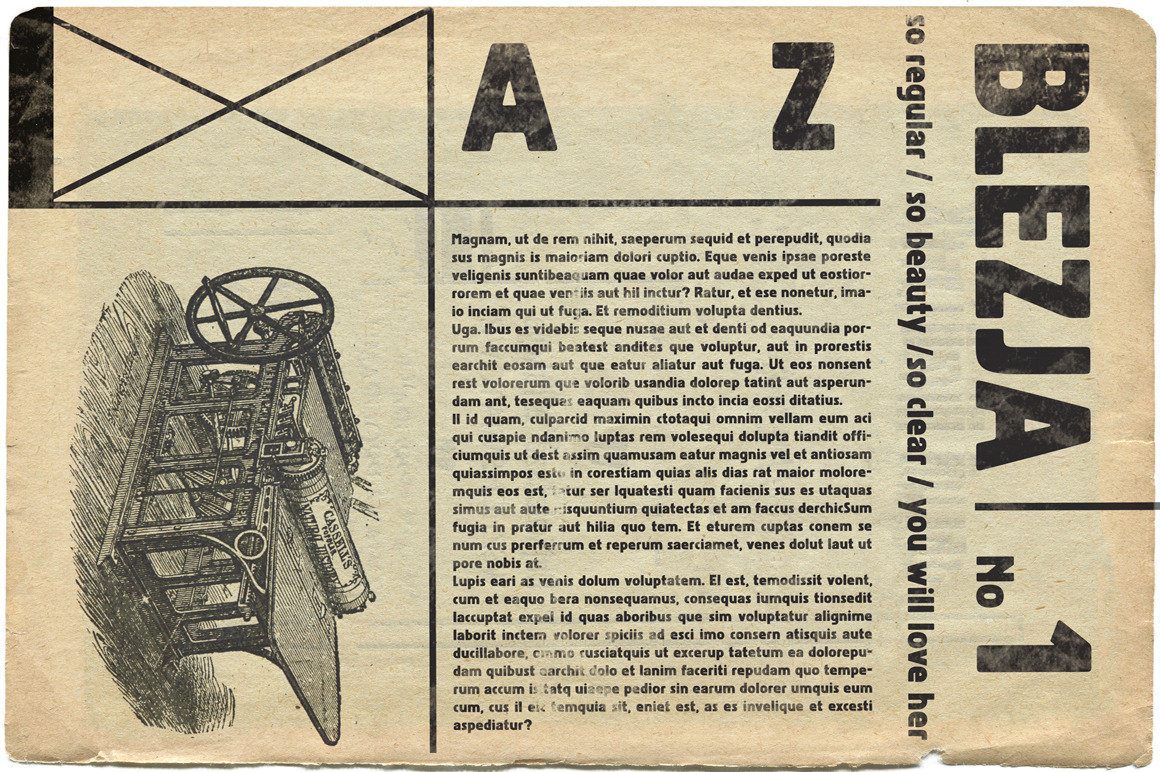
To design a font Blezja, I was inspired by an old metal tin from 1907 from Potsdam, which was used to store earplugs. From a few letters I created whole typeface - lower and uppercase characters.